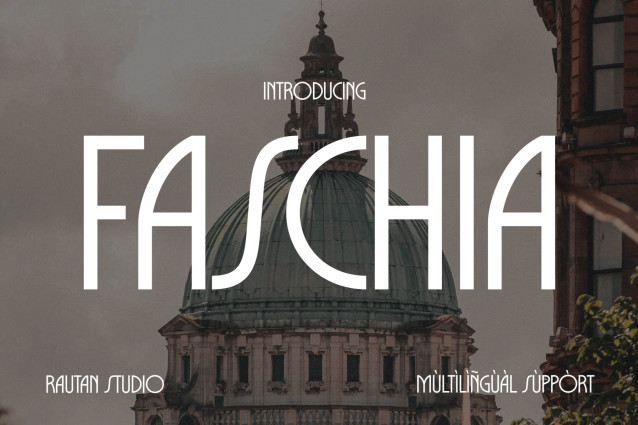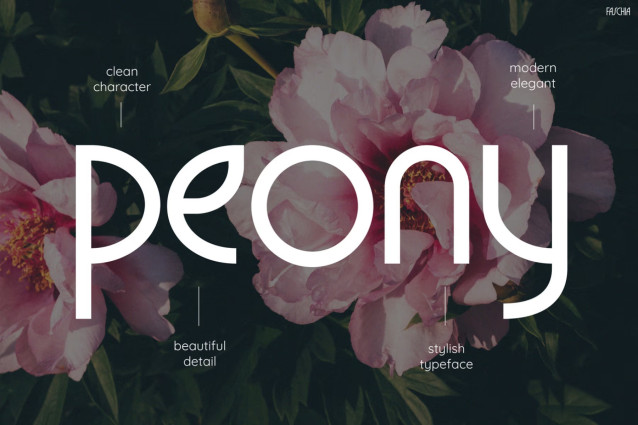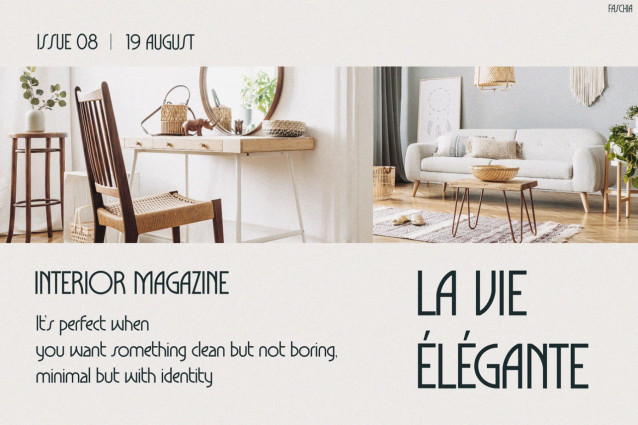
Faschia Font
Faschia Font is an elegant Art Deco-inspired display font featuring elongated proportions, high-waisted crossbars, and stylized geometric curves. Its clean, monoline strokes combine vintage sophistication with a modern, minimal sensibility that feels both classic and fresh.
Best suited to boutique branding, cosmetic packaging, floral shop signage, event invitations, and editorial headlines. It shines in fashion and lifestyle layouts where its distinctive, tall letterforms can make a refined visual statement at larger display sizes.